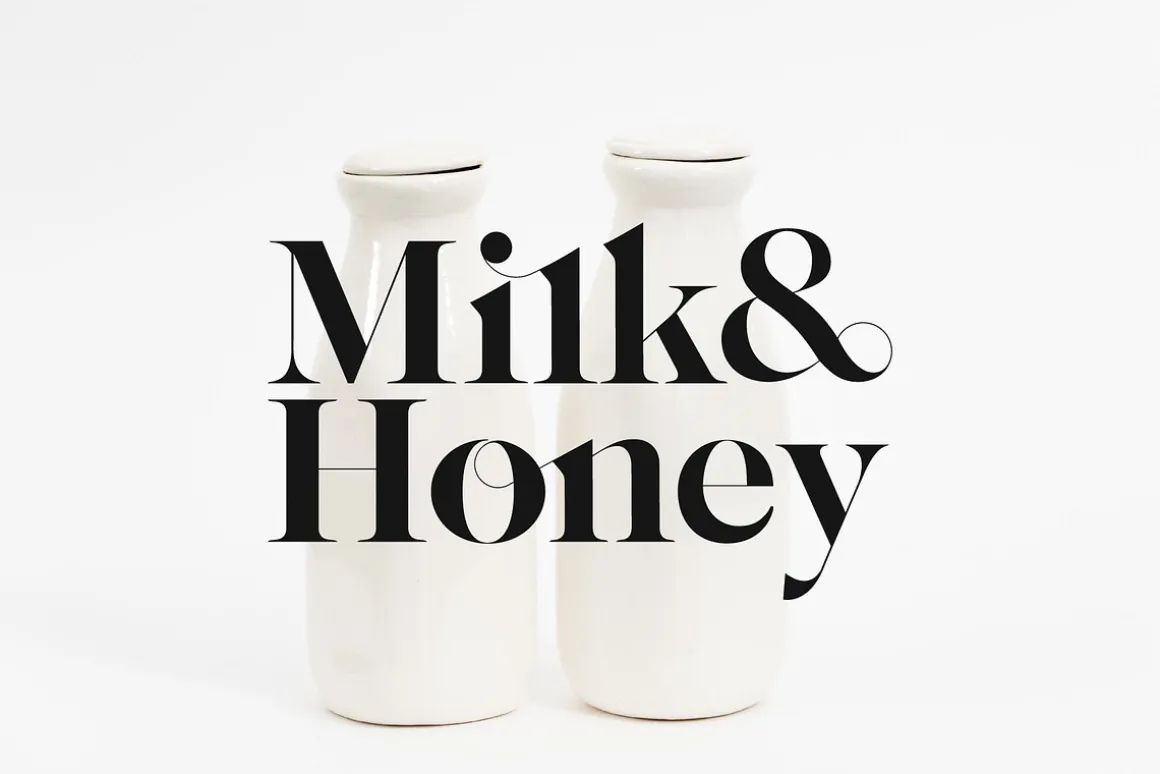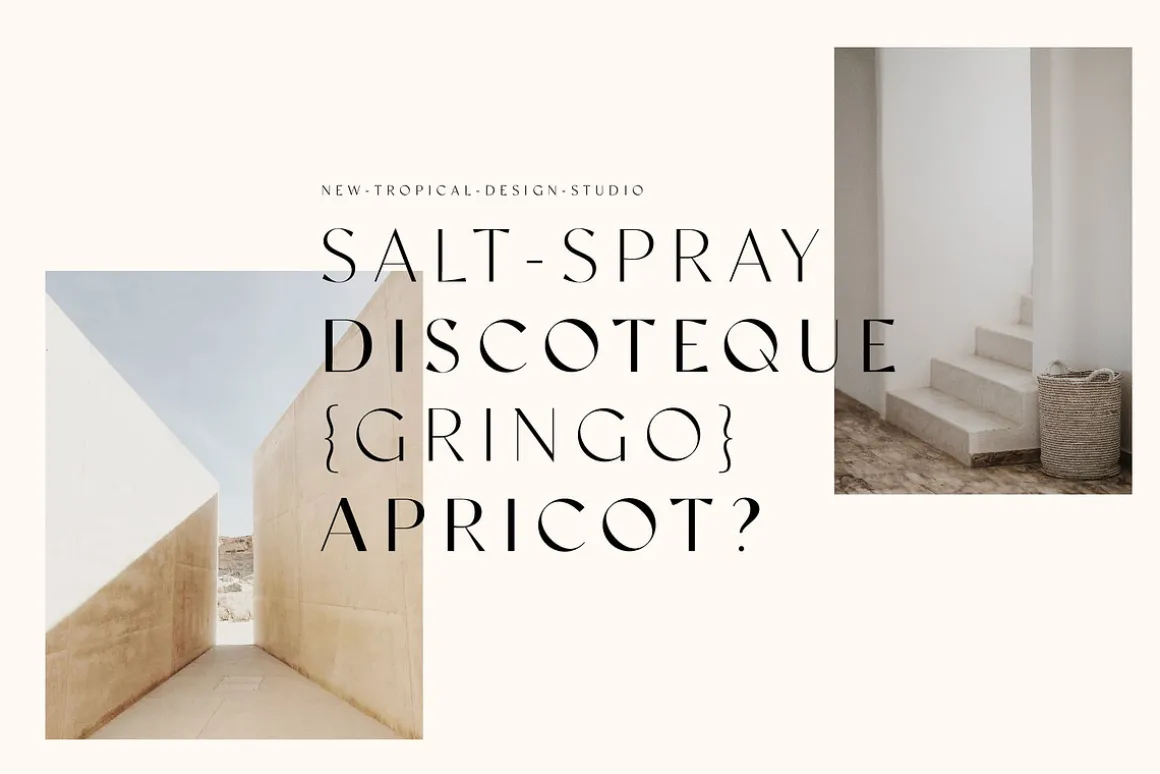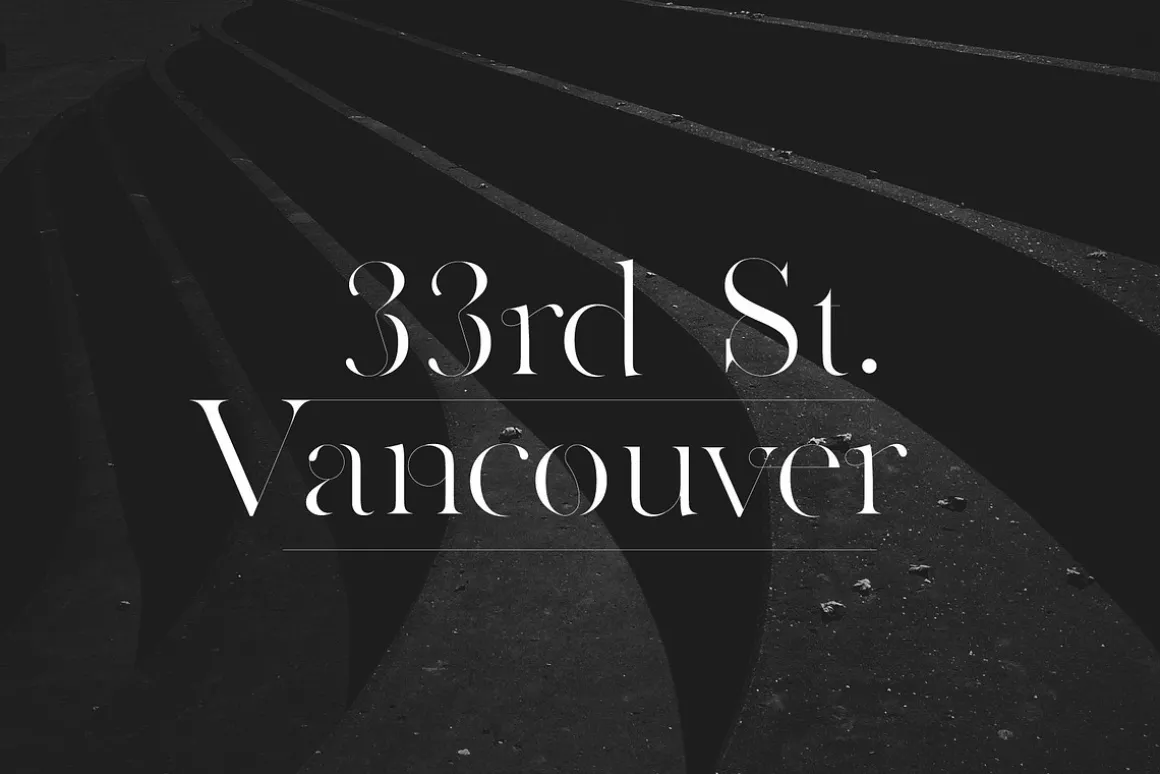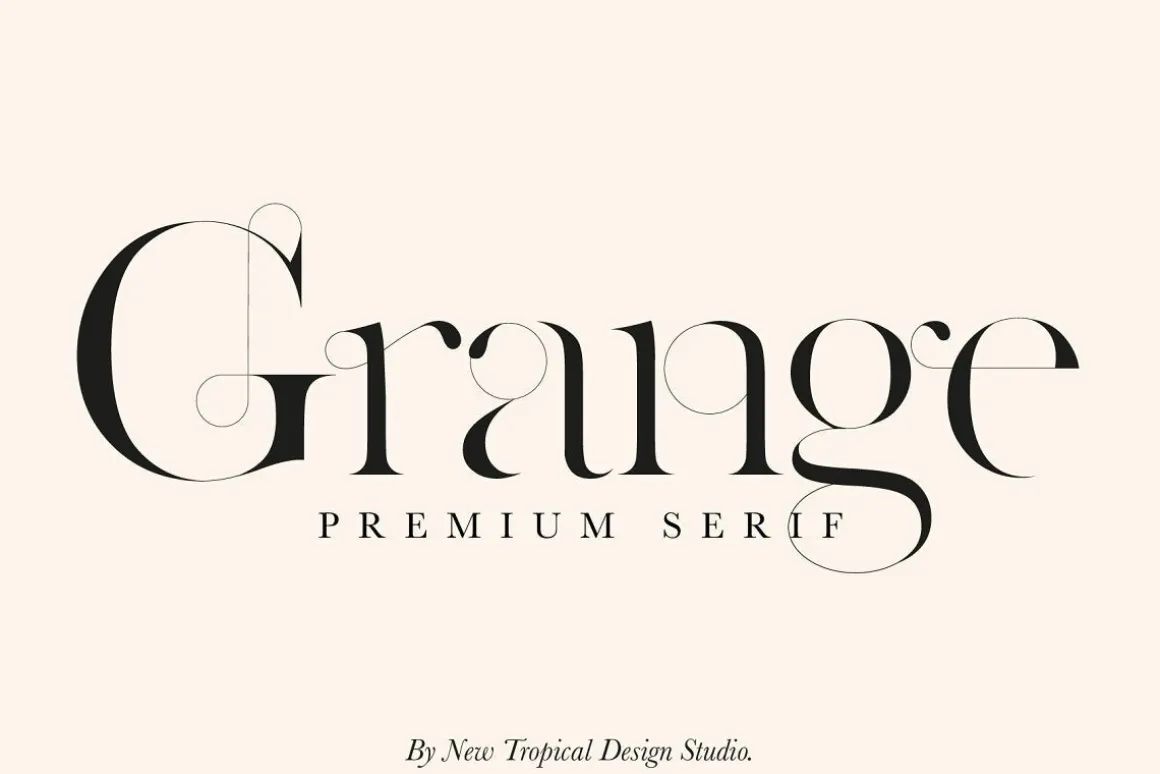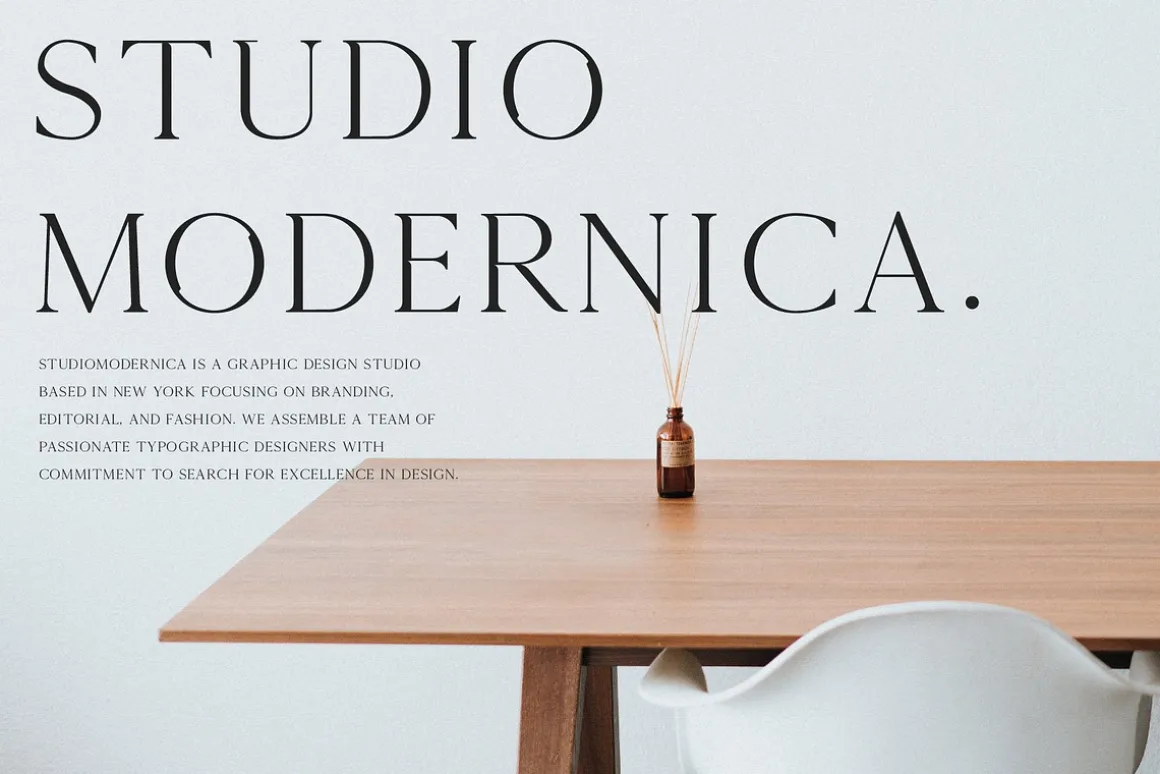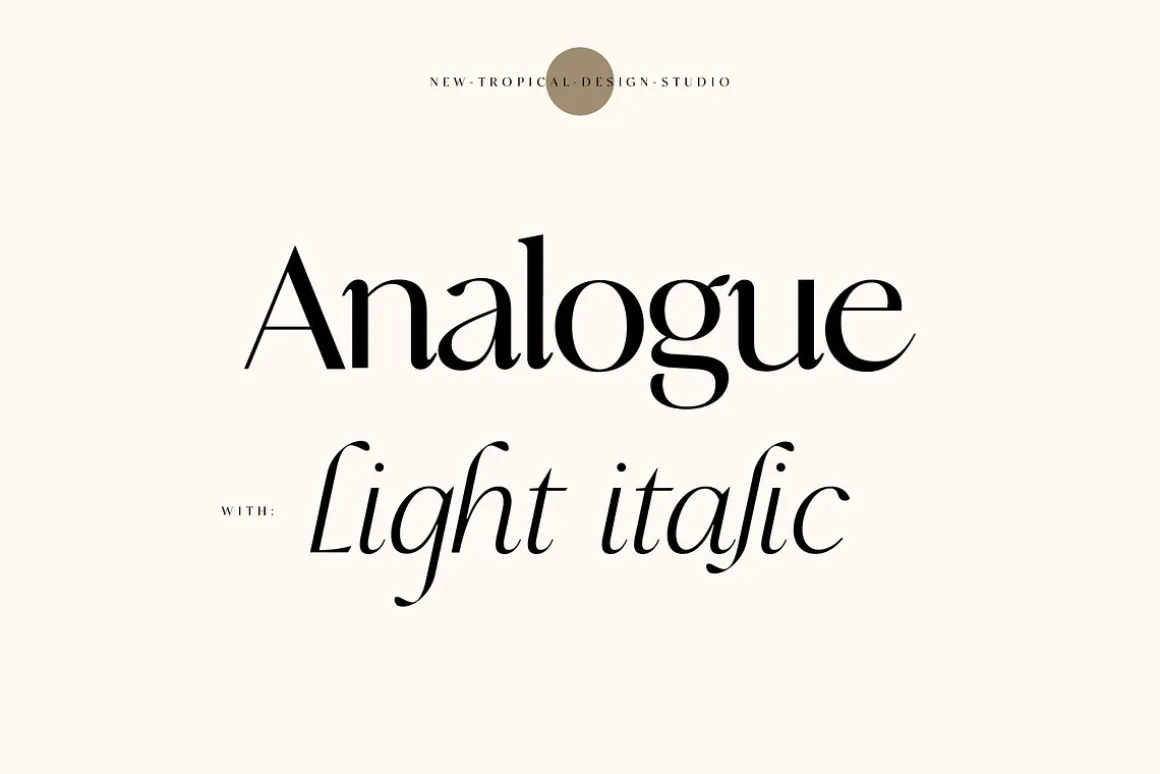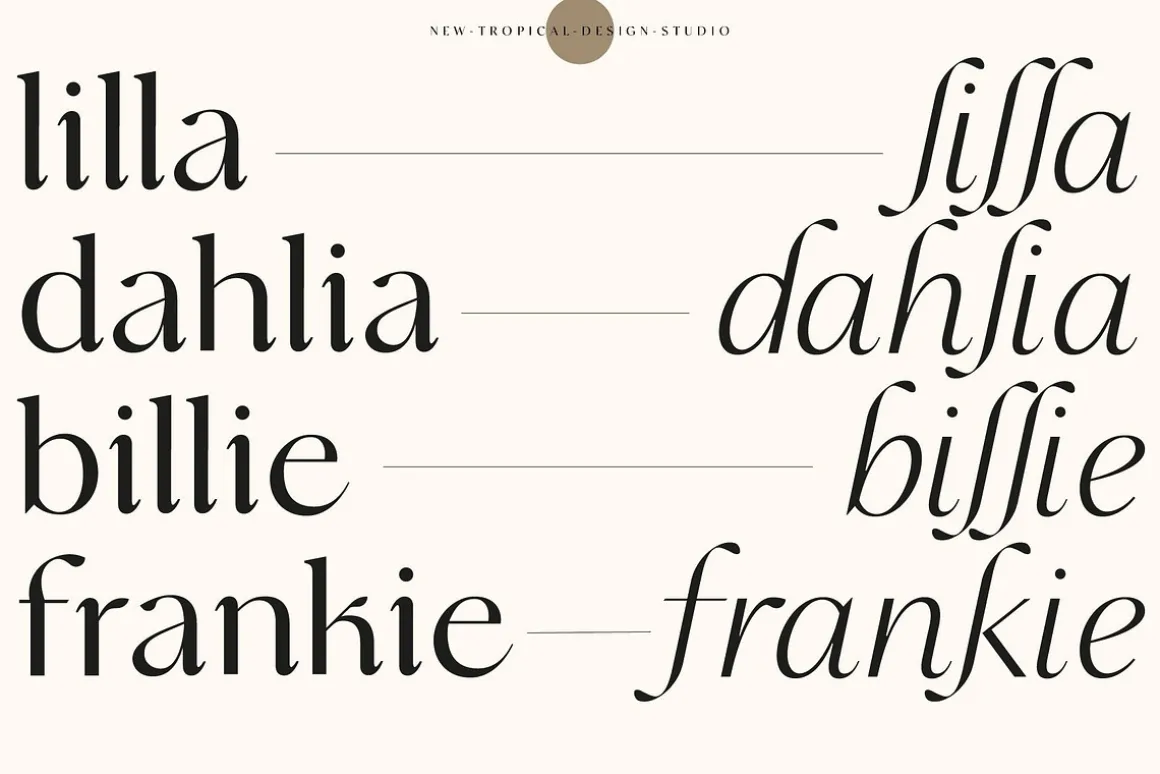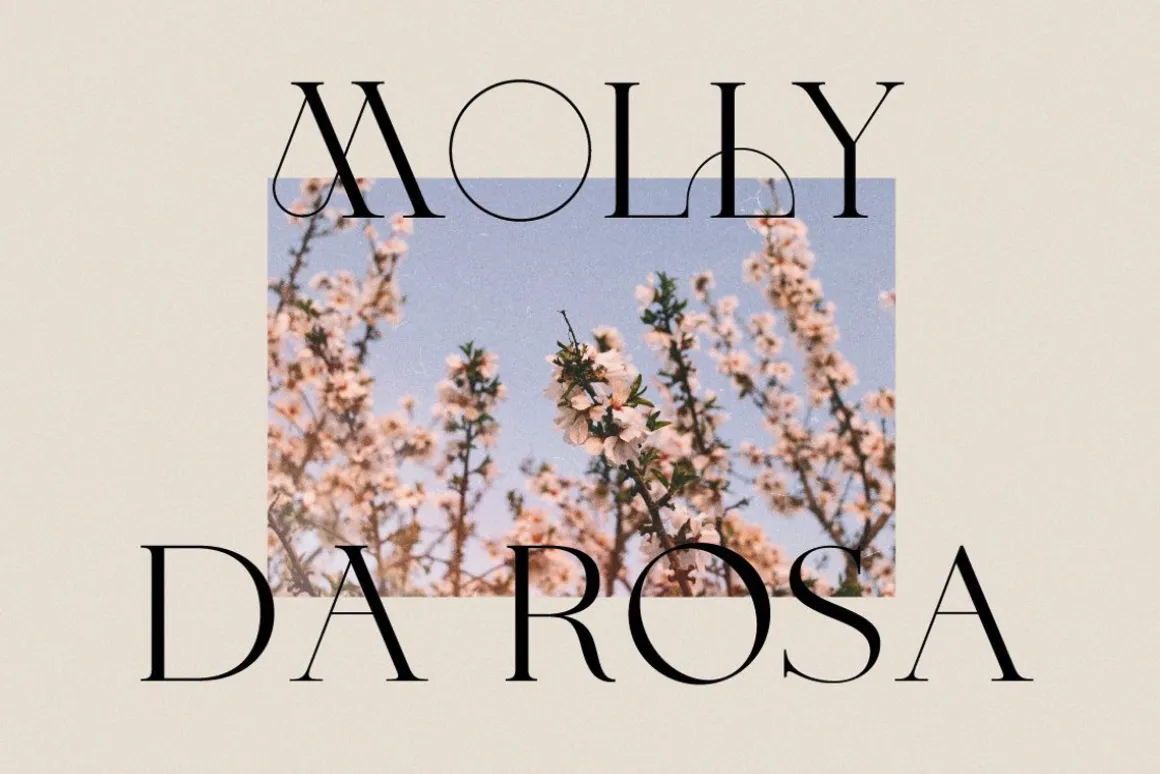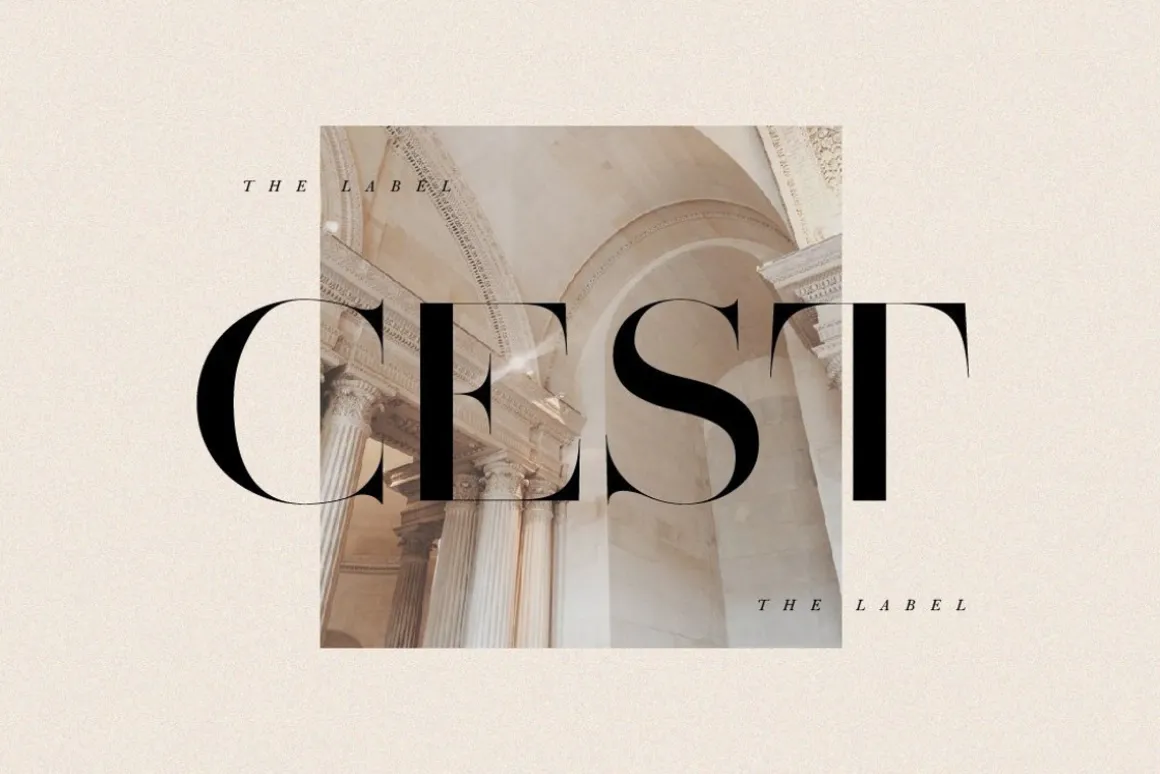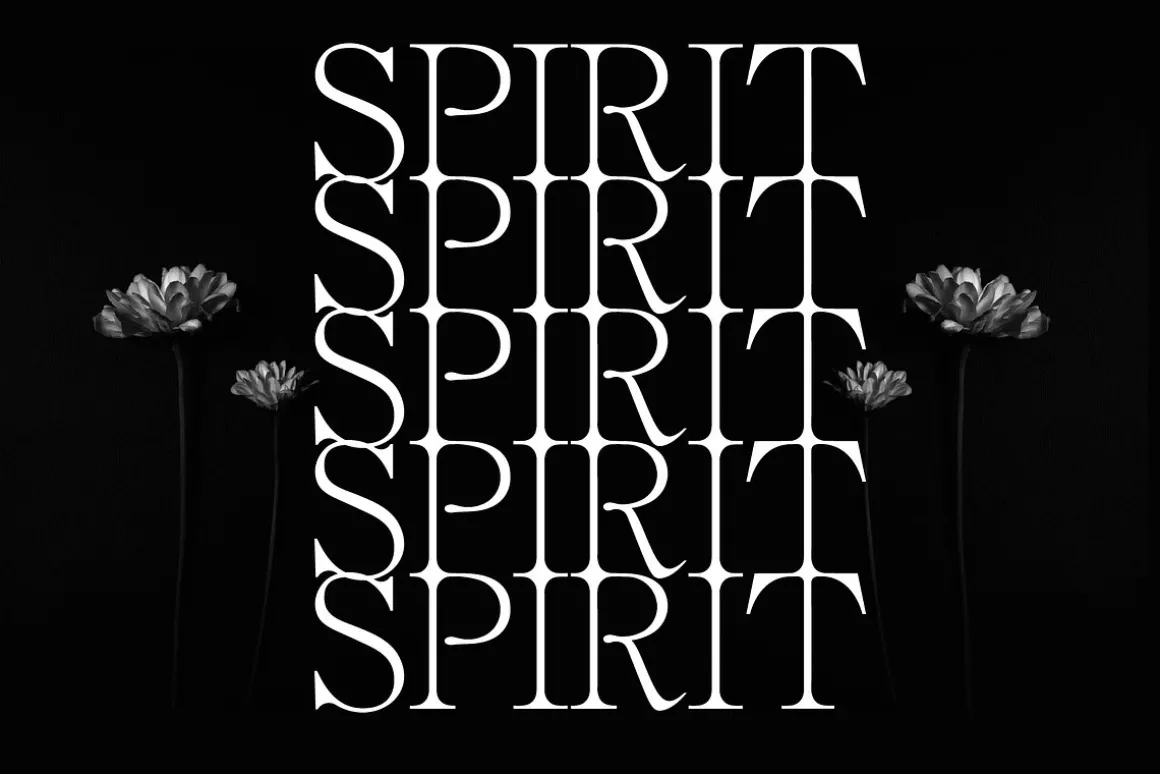
Fonts included:
- Dark Paradise
- Classico
- Evangelina
- Sophillia
- Monte~Carlo
- Vineyard
- Furlong Vintage
- Sage
- Kinfolk
- Analogue
- Marigold
- Grange